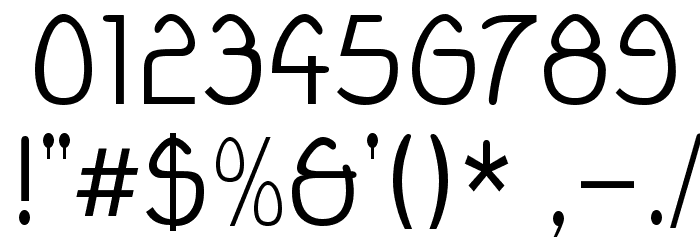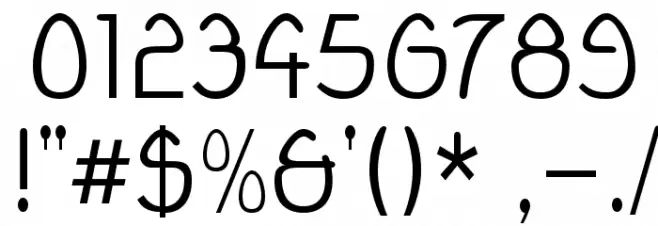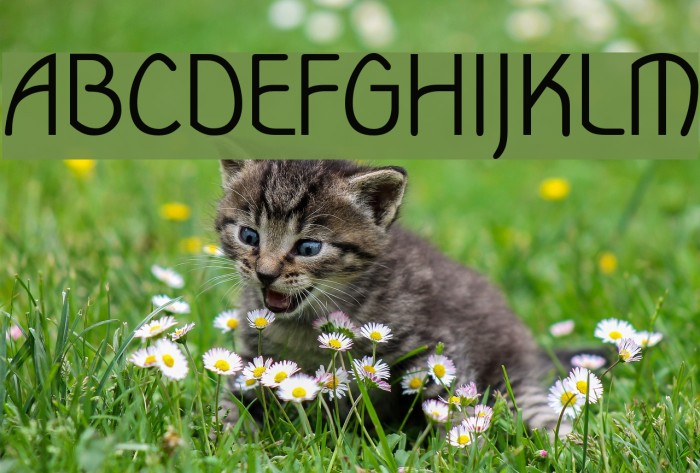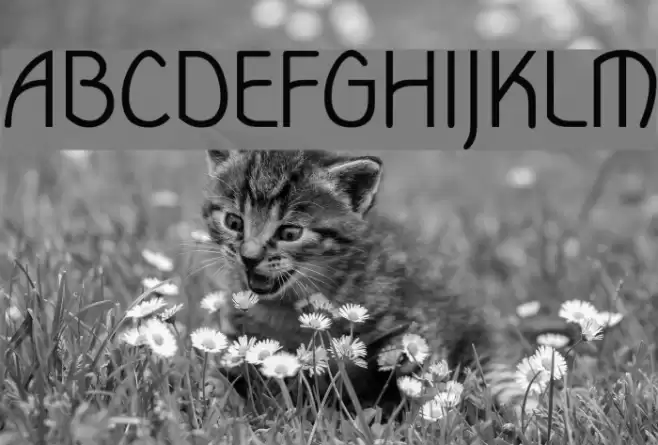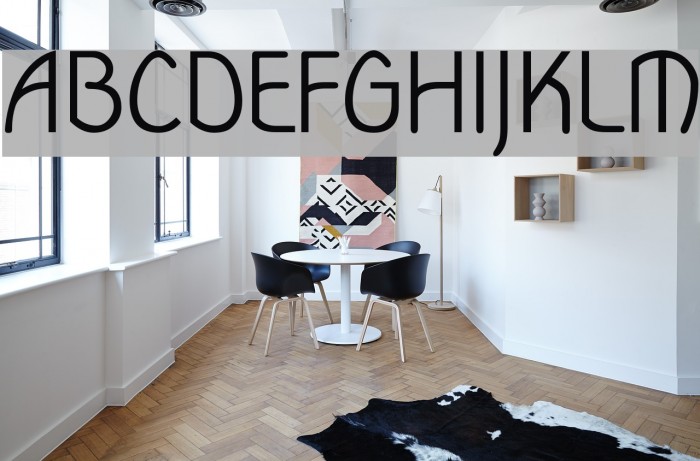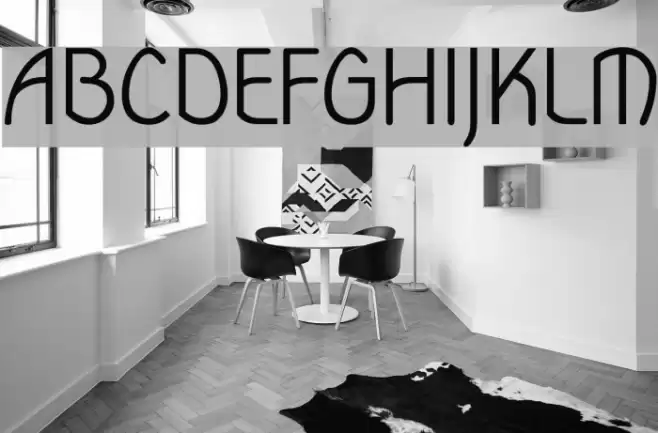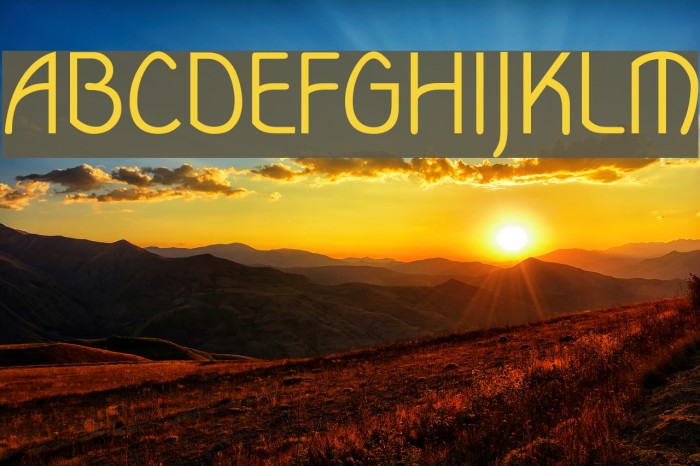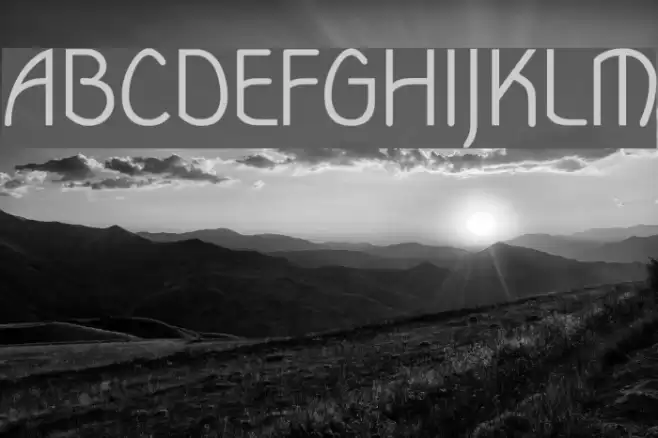
Wanda Font
Wanda Description
This font features a modern and sleek design with a distinct geometric flair. The characters are crafted with a unique blend of curves and straight lines, creating a harmonious balance. Uppercase letters exhibit a uniform height, while lowercase letters maintain a consistent baseline with playful variations in ascenders and descenders. The numerals are bold and easily legible, complementing the overall aesthetic. Special characters are thoughtfully designed to match the font's style, making it versatile for various applications. The clean lines and open forms contribute to its readability, making it suitable for both digital and print media.
| Use Case | Headlines, Logos, Digital media |
| Proposed Projects | Ideal for branding, advertising, digital media, and editorial design projects. |